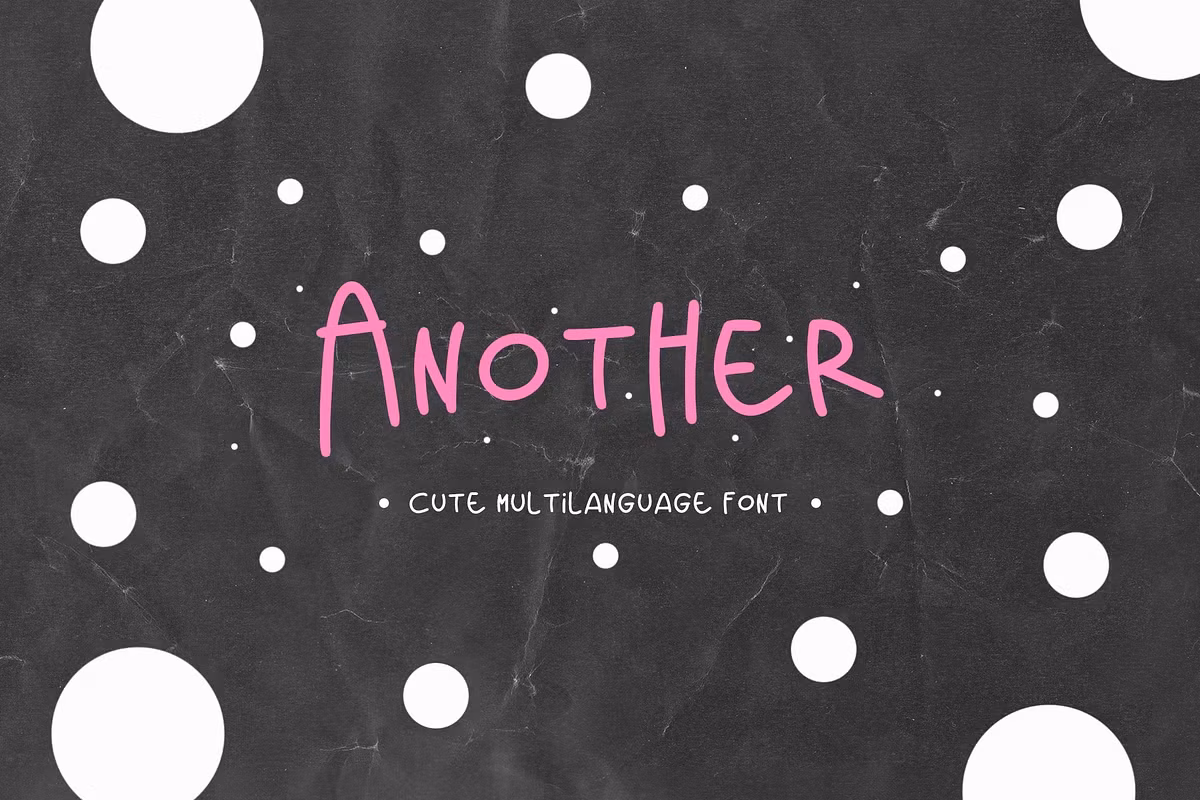
The Another Font Free Download is a modern and versatile typeface that stands out with its clean lines and subtle artistic flair. Perfect for branding, editorial layouts, website headers, and minimalist design projects, this font delivers both elegance and edge in one sleek package.
With its balanced structure and stylish attitude, The Another Font Free Download offers a refined look that’s ideal for designers who crave both functionality and creativity. Whether you're crafting logos, magazine spreads, product packaging, or digital content, this font adapts effortlessly to your vision.
It brings a fresh, contemporary feel without being overly flashy—making it a great addition to both bold and understated projects. Use it as your main headline font or pair it with a simpler sans-serif for a powerful visual contrast.
This is not just another font—it’s The Another Font. And it might just become your new favorite design weapon.